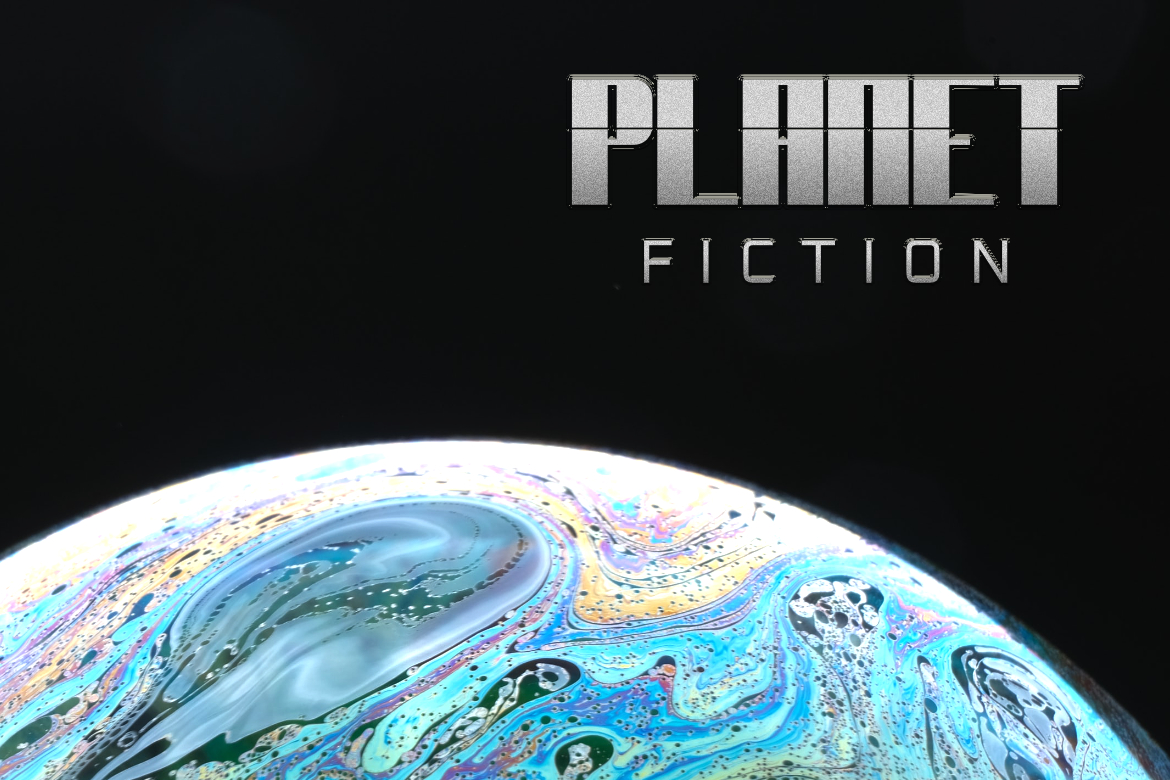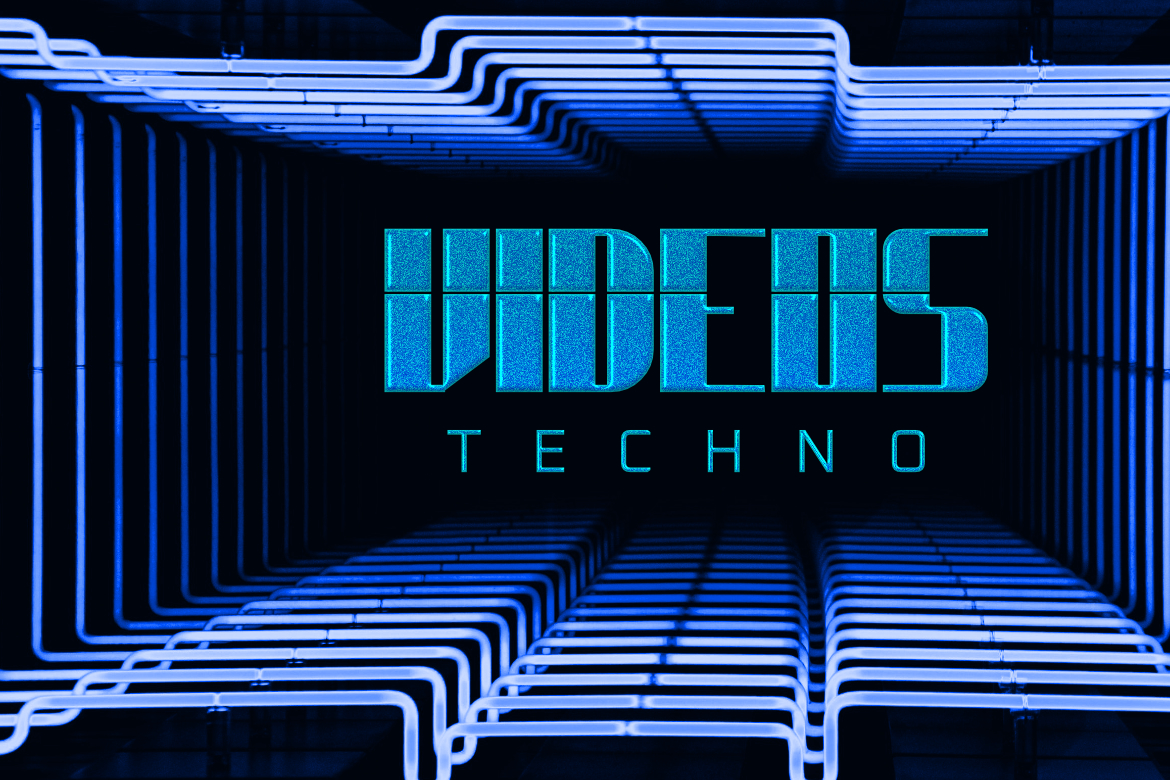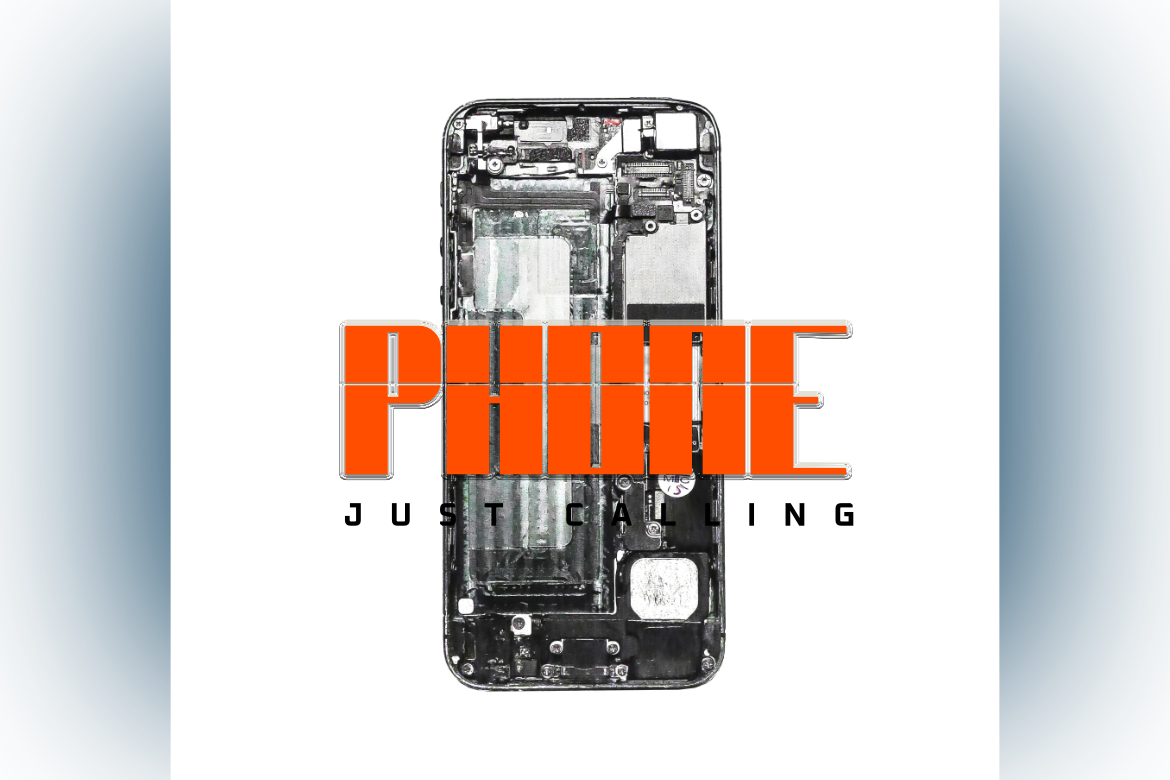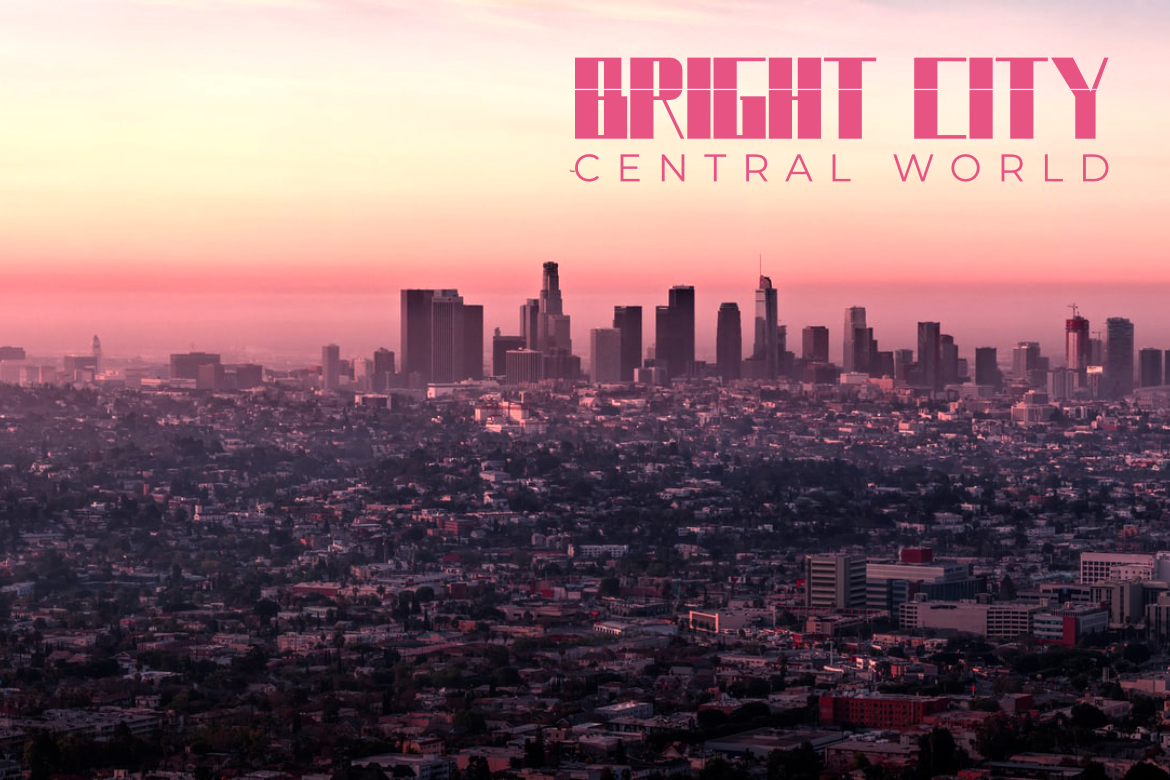
Wonome Display Font
This is a cool and modern display font. It will look stunning on any poster, flyer or print. Use this font for your designs and explore its endless possibilities.